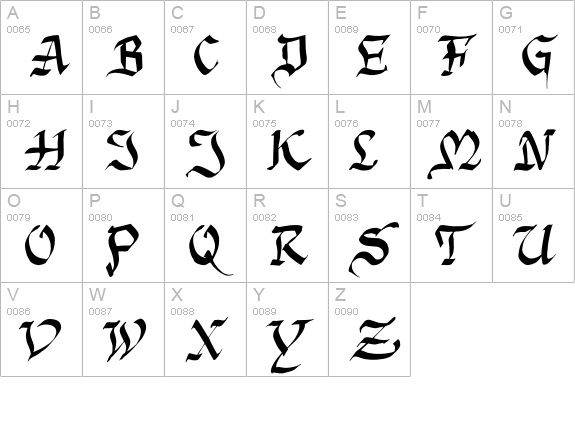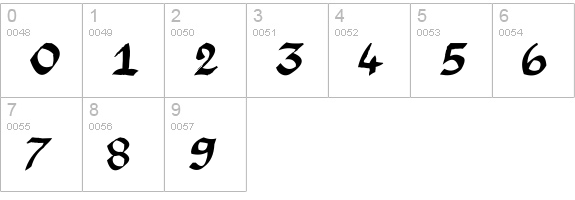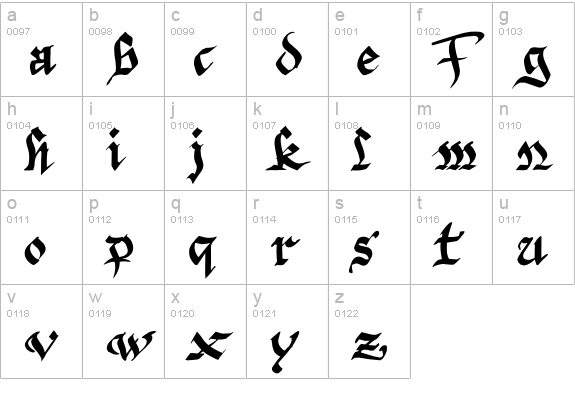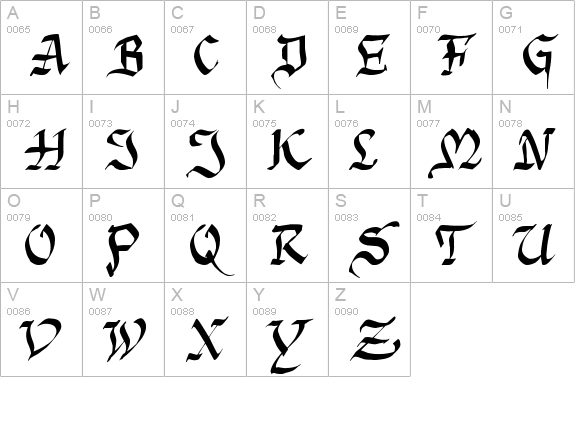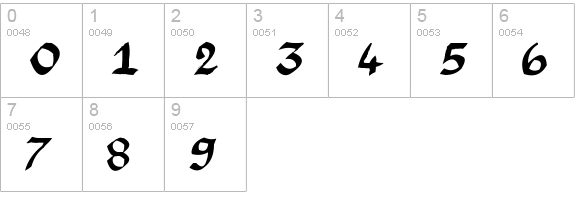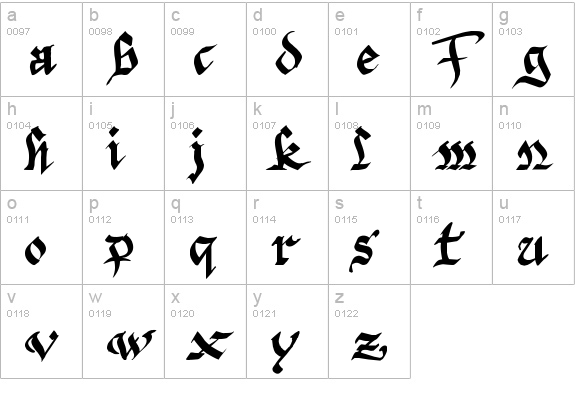
Argor Priht Scaqh Font Details
Argor Priht Scaqh is a stunning and elegant font that exudes sophistication and modernity. Its sleek lines and unique curves make it a perfect choice for a wide range of design projects, from branding to editorial design. The font strikes the perfect balance between classic and contemporary, making it versatile and suitable for various design purposes. What sets Argor Priht Scaqh apart is not just its aesthetic appeal, but also the fact that it is freely available to download at FontsMarket.com. This means that you can easily access this beautiful font without any cost, making it a valuable addition to your font collection. Whether you are a seasoned designer looking for a fresh typeface or a beginner exploring different fonts, Argor Priht Scaqh is a must-have in your toolkit. Download it today and elevate your design projects with this exceptional font.